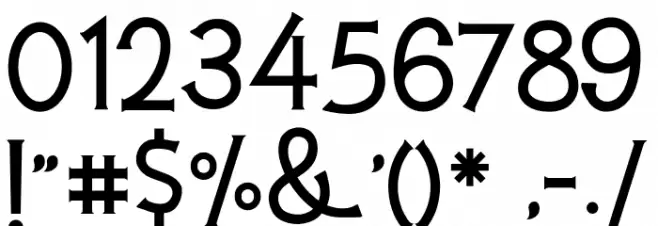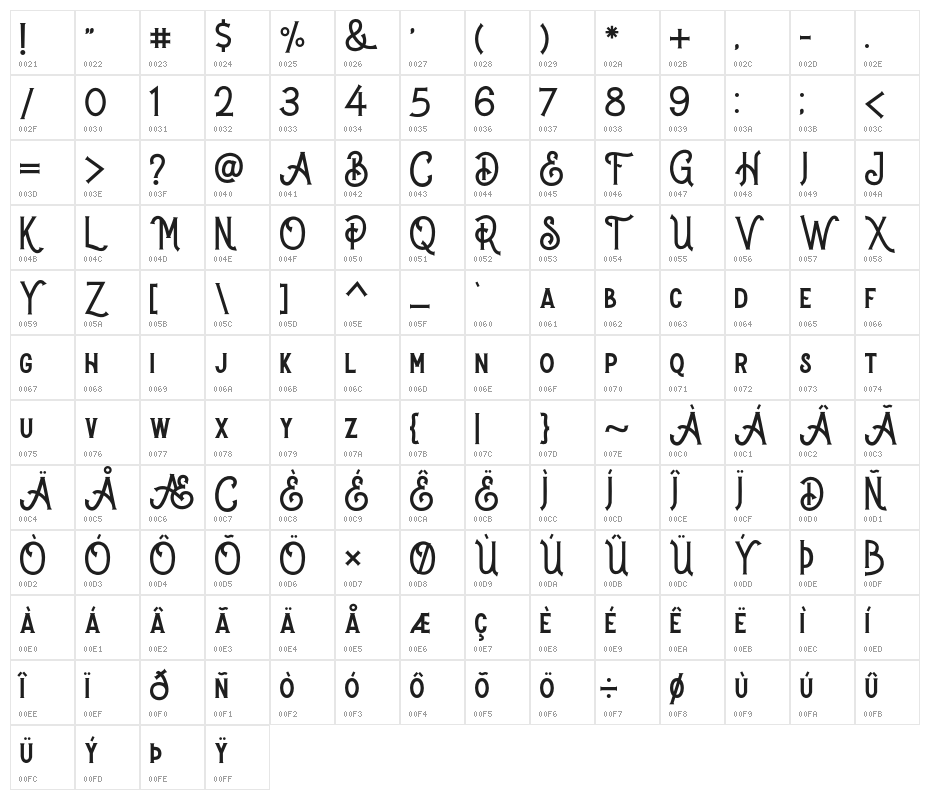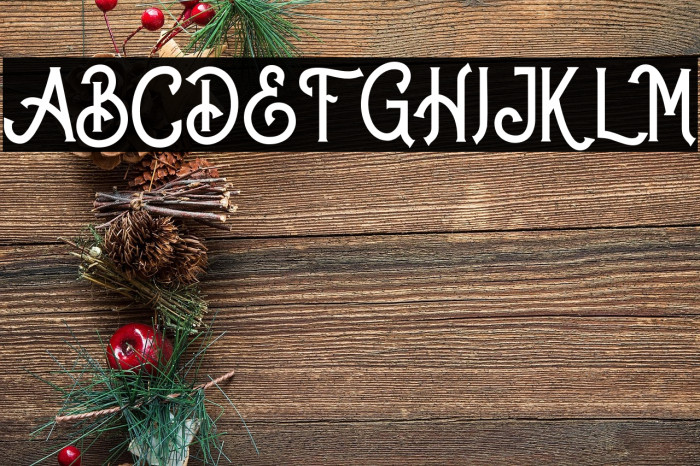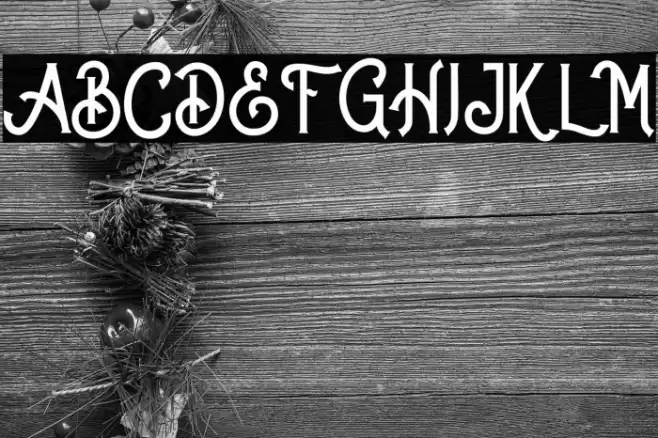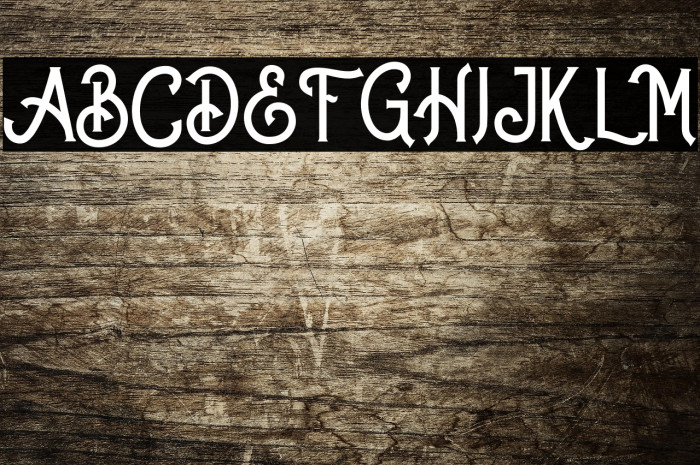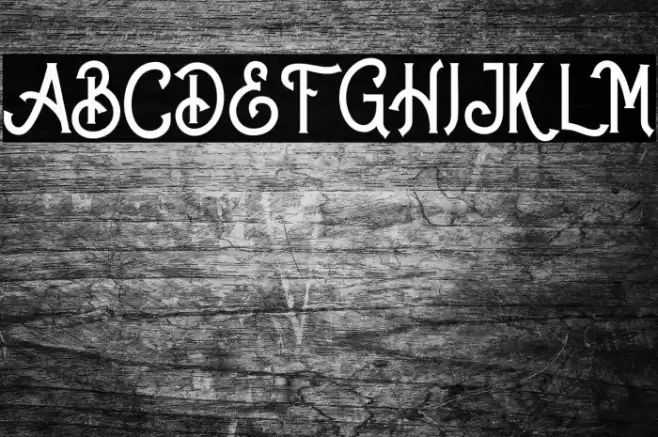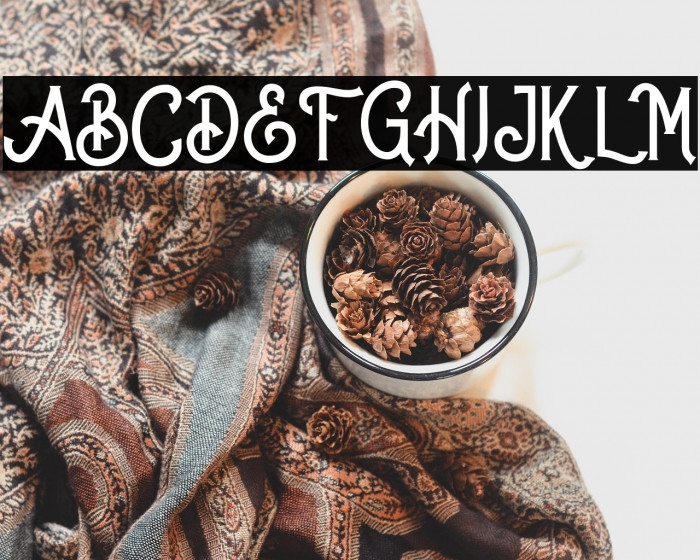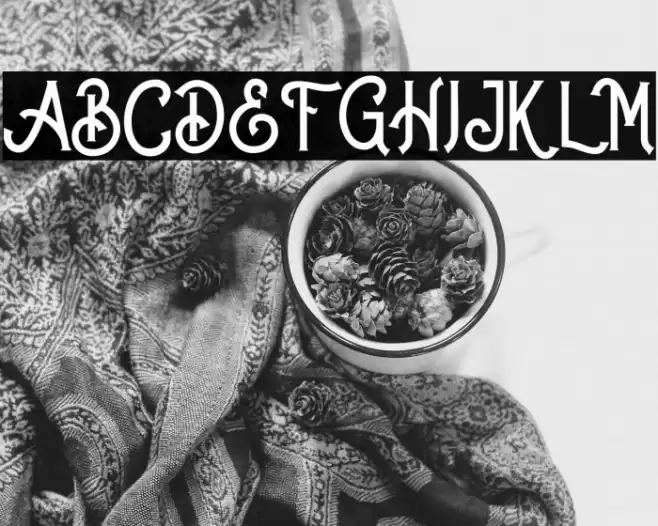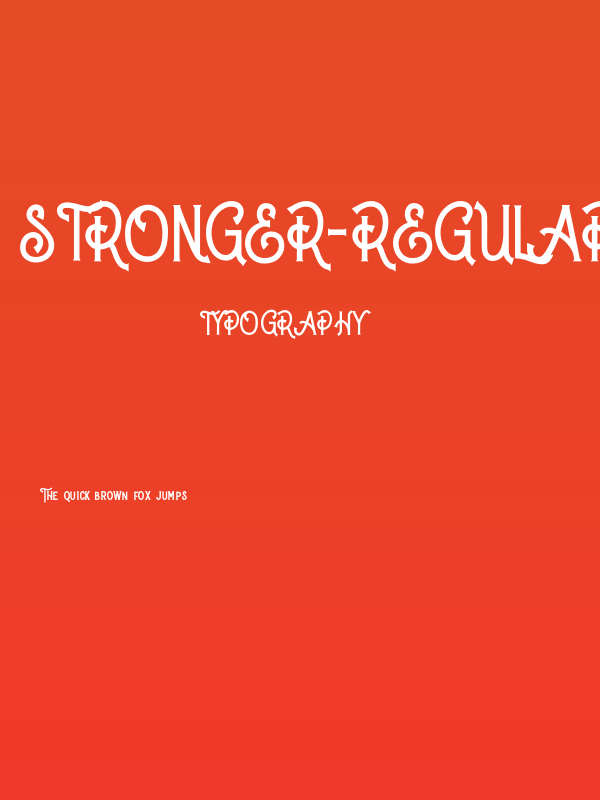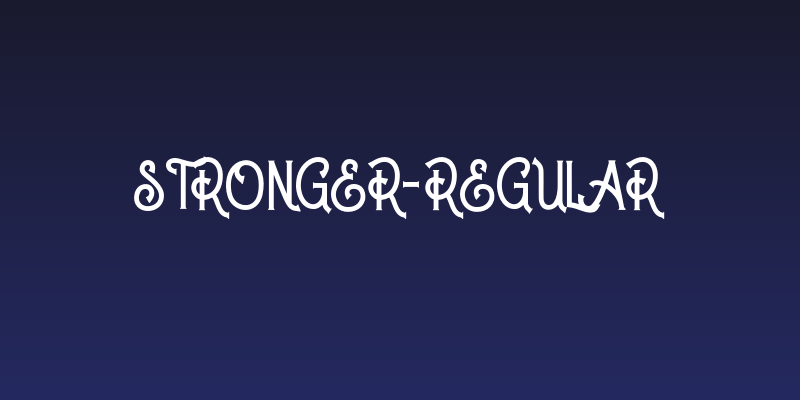
Stronger-Regular Font
Stronger-Regular Description
This font features a bold and dynamic design with a strong presence. The uppercase letters are characterized by their thick strokes and slightly condensed form, giving them a powerful and assertive appearance. The lowercase letters maintain a consistent weight, complementing the uppercase with a harmonious balance. The numerals are clear and robust, ensuring legibility across various applications. Special characters are designed with the same boldness, making them stand out effectively. Overall, this font combines traditional serif elements with a modern twist, making it suitable for impactful designs.